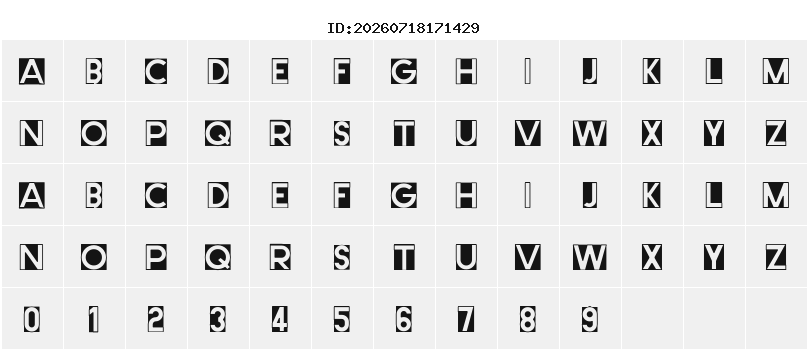
Cut Me Out 2 Preview
About Cut Me Out 2.ttf
Cut Me Out 2.ttf is a modern, elegant sans-serif font designed for ultimate readability and visual harmony. Perfect for branding, headlines, web design, and print materials.